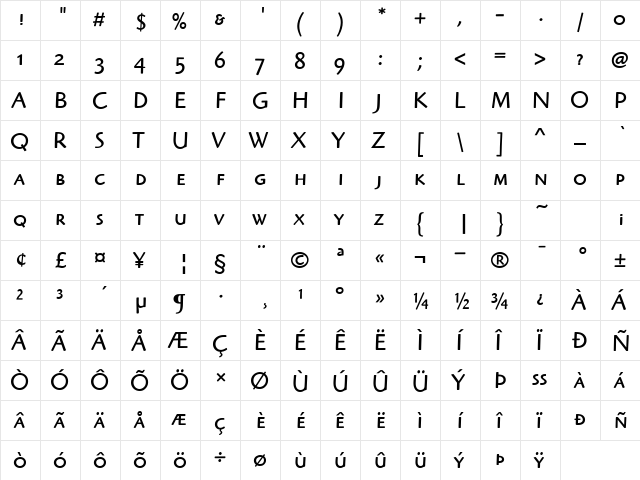
HighlanderITCSC-Book Book
Design Context for HighlanderITCSC-Book Typeface
HighlanderITCSC-Book offers clean, dependable letterforms without strong stylistic allegiance, making it a practical choice for designers who need flexibility.